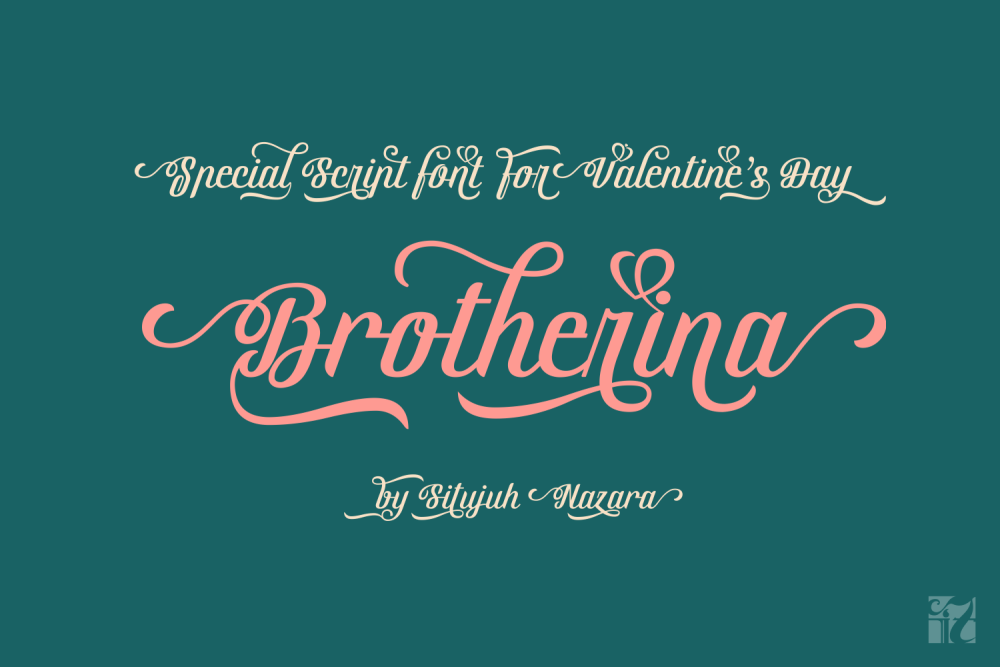
Brotherina Script Font
Introducing the new script font. Brotherina Script Font designed and shared by Situjuh Nazara. Alisandra is a beautiful handwritten script font. Brotherina is designed especially for valentine’s days font. Not only works charming on display, it also has a unique cursive characters for text. Since it is an Open Type Font and PUA encoded, there are a lot of alternative stylistic sets that makes font lovers choose free of each character style they want.